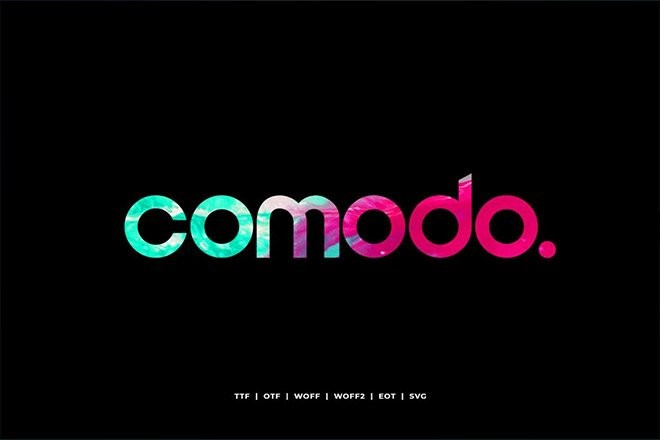
With the right font, you can completely change the look of a design. But how do you find the right font? And what makes a font great? Let’s find out.
A great font attracts the user’s attention first before persuading them to read. But, the text has to be easily readable at the same time.
Robert Bringhurst, author of The Elements of Typographic Style says it best: “Typography must often draw attention to itself before it will be read. Yet in order to be read, it must relinquish the attention it has drawn.”
We’ve found a few amazing font ideas for creating typography that achieves that goal. While these fonts will serve some designs better than others they can be used with various different design projects. Have a look and see if you can find a creative way to make use of these fonts.
Amelia for Wedding Invitations
A beautiful script font is a perfect choice for designing an elegant wedding invitation. But a monoline script font takes that to the next level.
There’s something special about monoline script fonts that creates a sense of character, feminism, and creativity in any design. All of which are important elements in a wedding invitation design.
That’s exactly why Amelia is the right choice for crafting all things related to wedding stationery. This font will make everything from wedding invitations to RSVP cards, table cards, and thank you cards look extraordinary.
Radon for Luxury Logo Design
The logo is the most important element in brand identity. It’s what makes a brand memorable and recognizable no matter where it’s displayed. This makes monogram fonts the most effective choice for logo design, especially for luxury brands.
Many of the most popular luxury brands, including Gucci, Chanel, and Louis Vuitton, use monogram logos. The way monogram logos create a simple yet elegant look is unmatched by other types of logo designs.
Radon is a monogram font that you can use to create such monogram logos without effort. It comes in regular, bold, and decorative styles so you can mix and match different font styles to create unique designs.
The title is the first thing a person notices when they look at a poster. It’s what helps the user figure out what the poster is all about. And the best way to make sure your poster gets noticed is to make your titles as big and bold as possible.
There’s no better font than a tall and narrow sans-serif font to craft a title for a poster. They are effective at grabbing attention and make the text easily readable.
Devant Pro is the perfect example of a poster title font. It’s big, bold, tall, and narrow. Has all the elements you’ll need to craft a poster title. Devant Pro is also a family of fonts so you’ll have plenty of choices as well.
Comodo for Website Headers
Most modern websites have one thing in common—a header that steals attention. And a beautiful title designed with the perfect font takes the center stage in that header design.
Website header or the above-the-fold section is an important section on a website as it’s the first thing a user sees when loading the site. It’s the first and only chance you get to make a great first impression.
With a font like Comodo, you can immediately make a lasting impression and represent your brand with a modern view. The stylish and decorative elements used in this font make it truly stand out from the crowd.
Flix for Flyer Design
Flyers and posters share many similar elements in the design. But, unlike posters, flyers are often considered as informative advertising where you include more details and information about a product or service.
The title is still the main highlight of a flyer design. Although, it can’t be too big or too small. A poster font is not a good fit for a flyer design. You’ll need a font that looks great in all sizes.
Just like the Flix font, which comes in regular and outline styles for crafting attractive titles for flyers. It’s an all-caps font so use it wisely.
Fonseca for Branding Design
Choosing the official font for a branding design is one of the toughest decisions a designer has to make. Because the font has to be versatile enough to be used across all brand material, including print and digital designs.
In such cases, it’s best to use a font family instead of one or two fonts for a branding design. With a font family, you get more font styles and weights to work with.
Fonseca is a great example of a font family you can use for branding design. It includes 16 fonts with 8 weights featuring lots of alternate characters and glyphs.
Using any creative-looking font for T-shirt designs is a mistake many designers make. While most fonts fit in perfectly in T-shirt designs, you should pick fonts that are appropriate for the audience you’re targeting.
For example, a vintage-retro font is a good choice for a hipster-style T-shirt. Or an urban font is more suitable for a street-style T-shirt design.
Or course, there are fonts like Author Type that are suitable for many types of casual and trendy T-shirt designs as well.